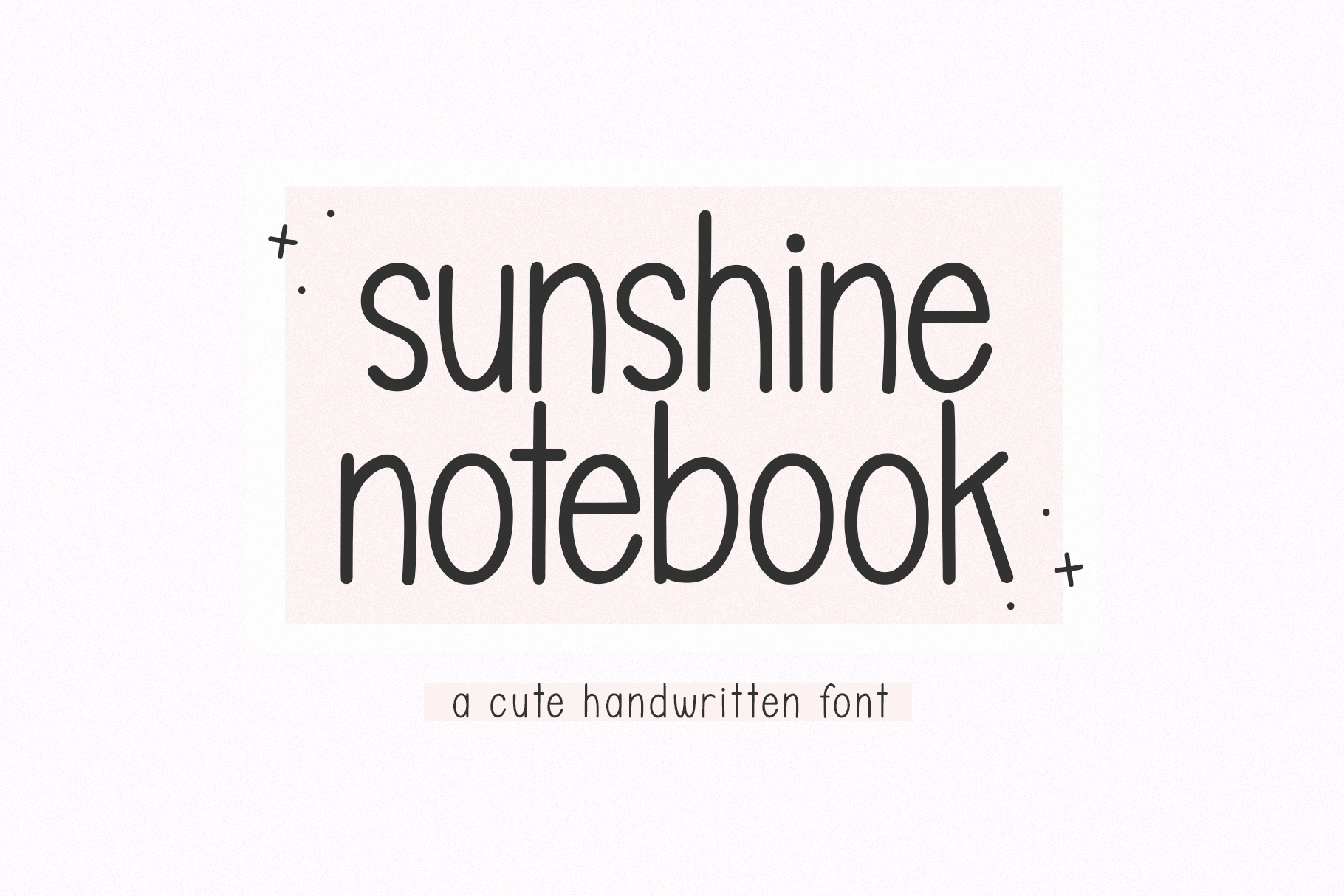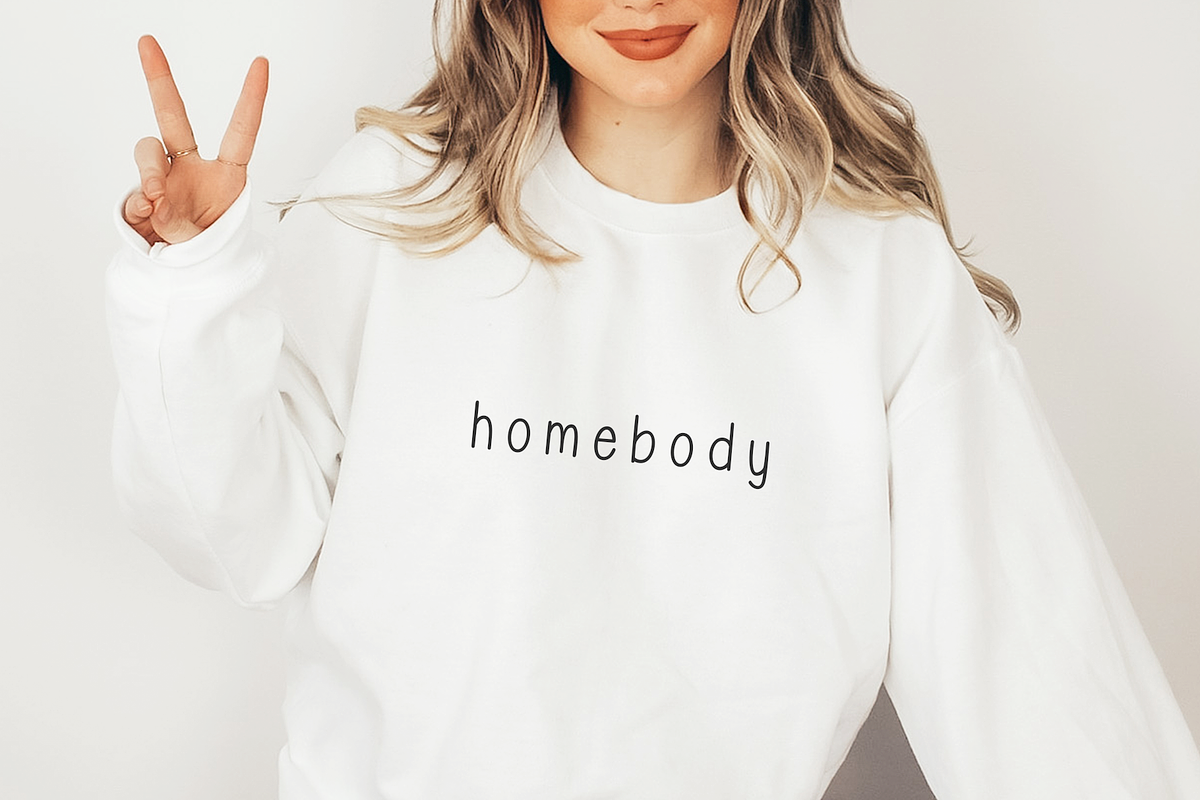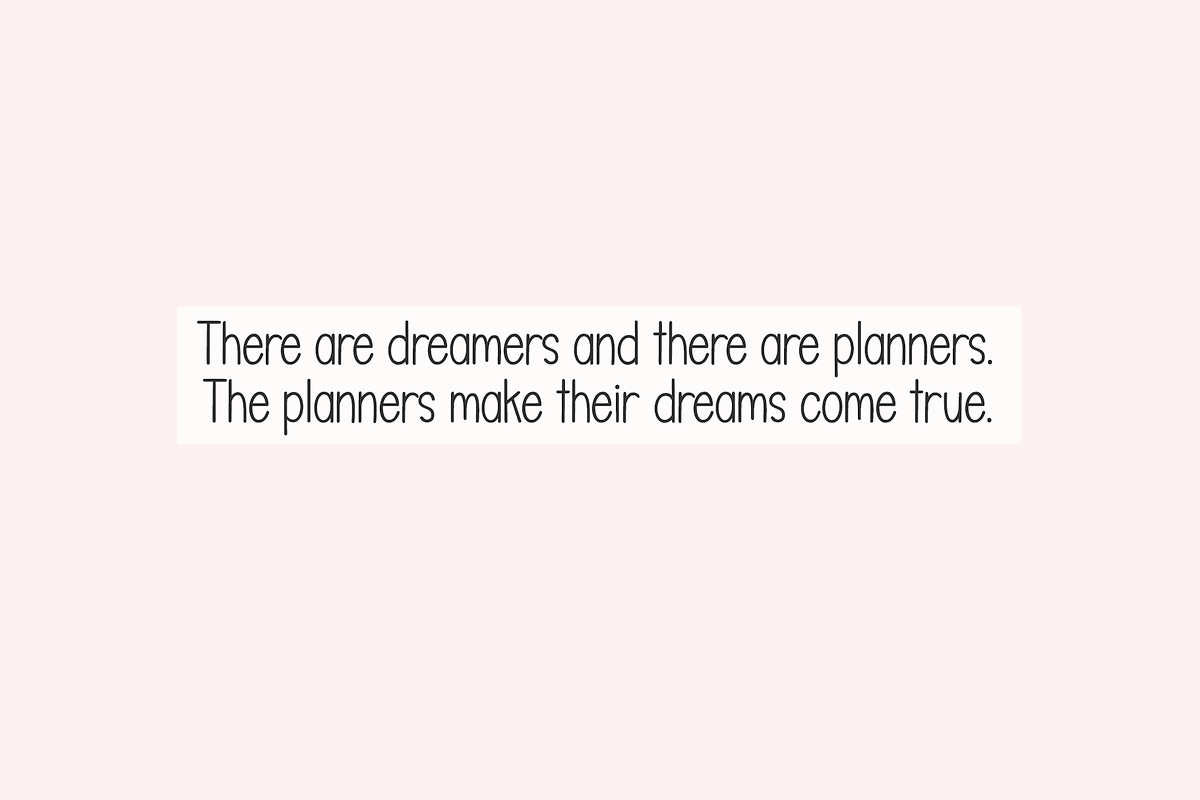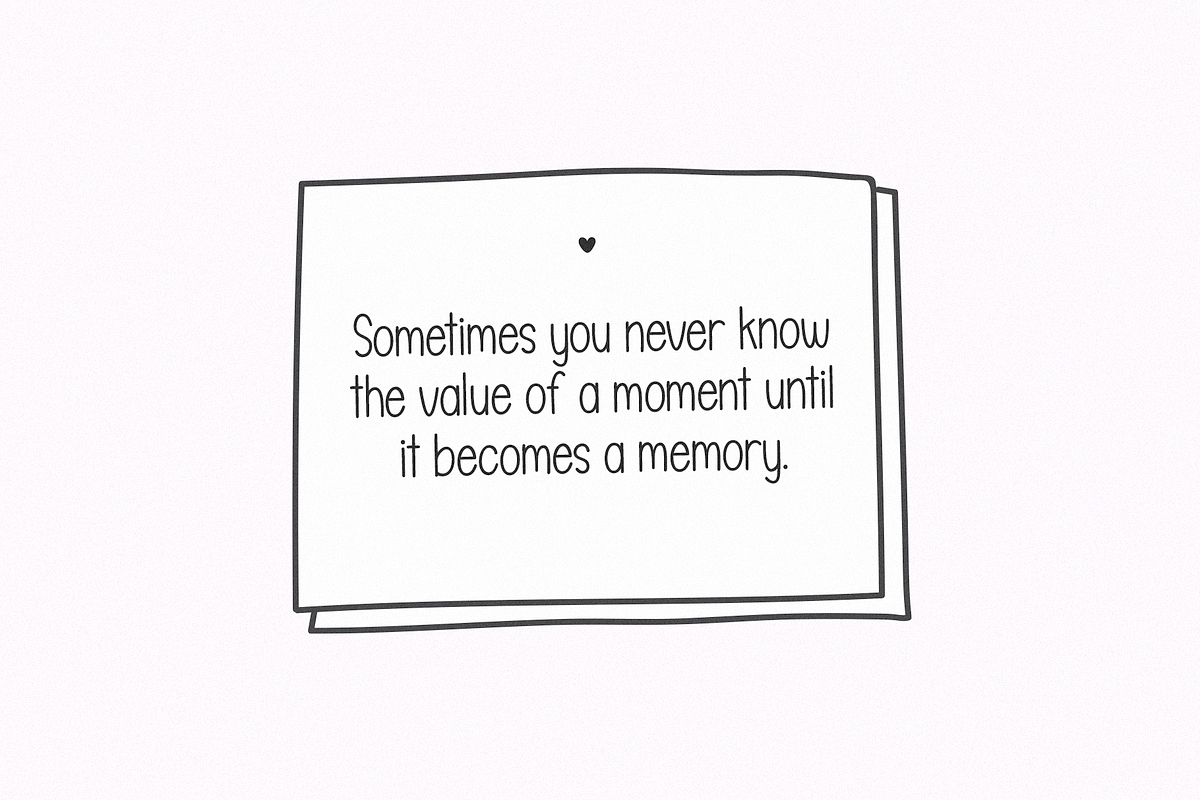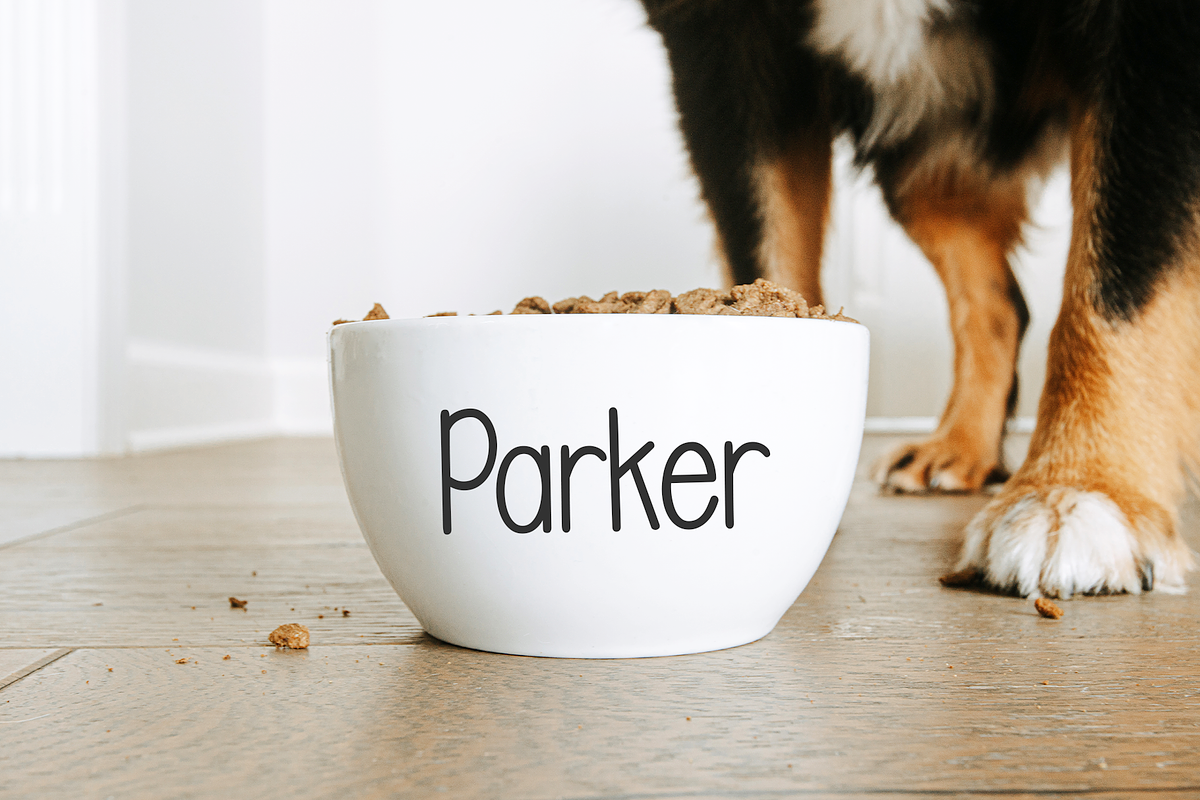
Sunshine Notebook | Cute Font
Sunshine Notebook is a cute handwriting font.
This font is perfect for cricut projects, quotes, goodnotes, planners, handwritten notes, logos, teachers and more!